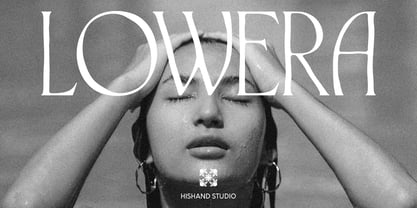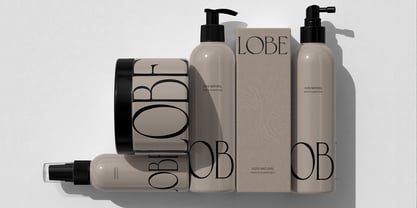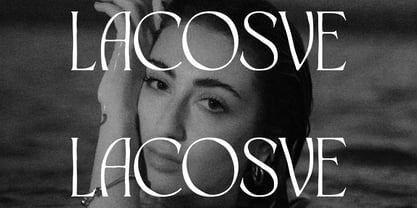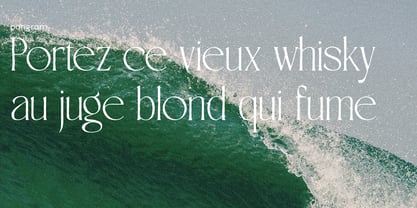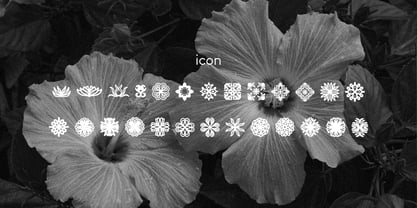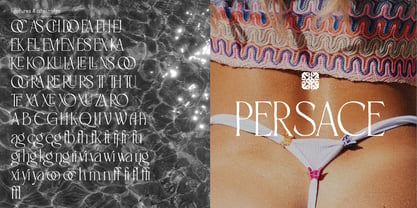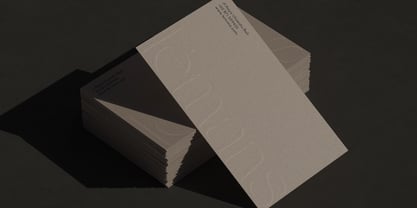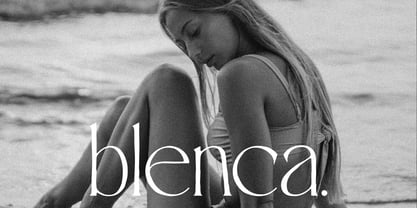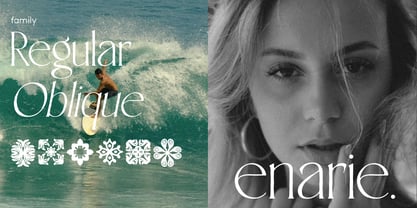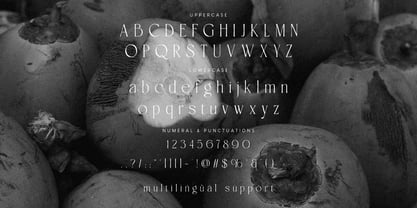
Lowera
by Hishand Studio
The Lowera Font Family was designed by Kadek Sisnu Sunaya Santika and published by Hishand Studio. Lowera contains 3 styles and family package options. More about this family
Lowera is a handdrawn inspired display serif built for labels, packaging, and branding that need a warm, artisanal touch. Every letter carries the imperfect charm of ink on paper, with tapered strokes that swell and thin like they were cut by hand rather than built by a grid. The baseline breathes instead of sitting rigid, giving each word a relaxed, organic rhythm that feels vintage without looking dated.
Lowera works beautifully on kraft paper, apothecary style labels, spirits and coffee packaging, market signage, or any brand chasing an old world, handmade feel. Uppercase letters carry strong presence for headlines and logotypes, while the slight irregularity in stroke weight keeps the design feeling personal, not mass produced. Includes support for accented characters, making it flexible for multiple languages.
From rustic product labels to farmhouse style menus and nostalgic brand identities, Lowera brings texture and character straight out of the box.
Designers: Kadek Sisnu Sunaya Santika
Foundry: Hishand Studio